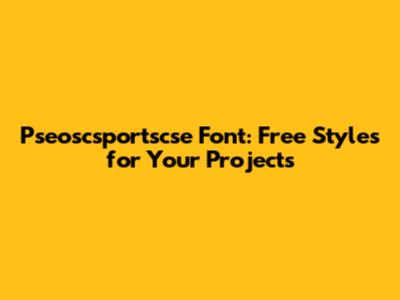
- Pairing Matters: Pseoscsportscse fonts often work best when paired with simpler, more neutral fonts for body text. Think of it as the star of the show – you want it to shine without overshadowing everything else. A classic sans-serif like Open Sans or Lato can provide a clean and readable contrast, ensuring your overall design remains balanced and professional. Experiment with different combinations to find what works best for your specific project.
- Use in Headlines and Logos: This font style is perfect for making a statement. Its bold and dynamic nature makes it ideal for headlines, titles, and logos where you want to grab attention. Use it sparingly, though, to avoid overwhelming the viewer. Think of it as adding a pop of color – a little goes a long way. In logos, the pseoscsportscse font can convey a sense of modernity, energy, and innovation, helping brands stand out in competitive markets. Just make sure the font aligns with the overall brand identity and messaging.
- Consider the Context: The pseoscsportscse aesthetic lends itself well to sports, tech, and modern design projects. If you're designing a website for a fitness app or creating marketing materials for a tech startup, this font style can be a great fit. However, it might not be the best choice for more traditional or formal designs. Always consider the context of your project and the message you're trying to convey. A font that works well for a sports brand might feel out of place in a luxury fashion campaign.
- Pay Attention to Kerning and Leading: Even the most beautiful font can look bad if it's not properly spaced. Pay close attention to kerning (the space between individual letters) and leading (the space between lines of text) to ensure readability and visual appeal. Adjust these settings as needed to create a polished and professional look. Poor kerning and leading can make your text look cluttered and difficult to read, undermining the impact of your design. Take the time to fine-tune these details, and you'll see a noticeable improvement in the overall quality of your work.
- Sports Apparel Brand: Imagine a new sports apparel brand aiming to convey a sense of energy, dynamism, and cutting-edge technology. The pseoscsportscse font could be used in their logo to immediately capture attention and communicate these values. Paired with bold, vibrant colors, the font would create a strong visual identity that resonates with athletes and fitness enthusiasts. In marketing materials, such as website banners and social media ads, the font could be used for headlines and call-to-action buttons, drawing the eye and encouraging engagement. The clean, modern lines of the font would also complement the sleek designs of the apparel, creating a cohesive and visually appealing brand image.
- Tech Startup: A tech startup seeking to project innovation, reliability, and a forward-thinking mindset could leverage the pseoscsportscse font in their branding. The font's clean lines and balanced letterforms would convey a sense of professionalism and trustworthiness, while its slightly sporty aesthetic would hint at the company's dynamic and innovative approach. The font could be used in the company's logo, website design, and marketing materials to create a consistent brand identity. Paired with a minimalist design and a cool color palette, the pseoscsportscse font would help the startup stand out in a competitive market and attract tech-savvy customers.
- Gaming Website: For a gaming website focused on action and adventure games, the pseoscsportscse font could be used to create a sense of excitement and immersion. The font's bold and dynamic appearance would align perfectly with the high-energy nature of the games, capturing the attention of gamers and drawing them into the website's content. The font could be used in headlines, game titles, and menu navigation to create a visually engaging and user-friendly experience. Paired with vibrant graphics and interactive elements, the pseoscsportscse font would enhance the overall gaming experience and help the website attract and retain a loyal audience.
Finding the perfect font can be a game-changer for any design project, whether you're working on branding, web design, or print materials. The pseoscsportscse style font offers a unique and versatile option that can add a distinctive touch to your work. In this article, we'll dive into what makes this font style special, where you can find it for free, and how to use it effectively in your projects. Let's explore the world of pseoscsportscse fonts and unleash your creativity!